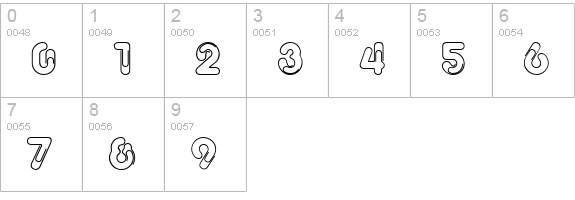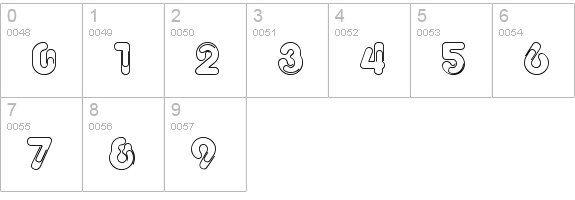
Pipeline Font Details
Pipeline font is a stunning typeface that exudes a sense of modernity and sophistication. Its sleek and streamlined design captures the essence of a well-constructed pipeline, with its clean lines and effortless flow. This font is perfect for adding a touch of elegance to any project, whether it be a logo, website, or print design. What makes Pipeline font even more appealing is that it is available for free download at FontsMarket.com. This means that you can add this exceptional font to your collection without spending a dime. With its high-quality and versatile nature, Pipeline font is a must-have for any designer or creative professional. The beauty of Pipeline font lies in its ability to effortlessly blend with various design styles. Its versatility allows it to be used in both bold and subtle ways, making it suitable for a wide range of projects. Whether you're looking to create a sleek and modern look or a timeless and classic design, Pipeline font has got you covered. With its clean and legible letterforms, Pipeline font ensures that your message is communicated clearly and effectively. Its balanced proportions and carefully crafted curves make it a pleasure to read, whether it's in a small paragraph or a large headline. Whether you're a seasoned designer or just starting out, Pipeline font is a valuable addition to your toolkit. Its versatility, elegance, and exceptional quality make it a font that you'll turn to time and time again. And the best part? It's absolutely free to download at FontsMarket.com. So why wait? Get your hands on Pipeline font today and elevate your designs to new heights.